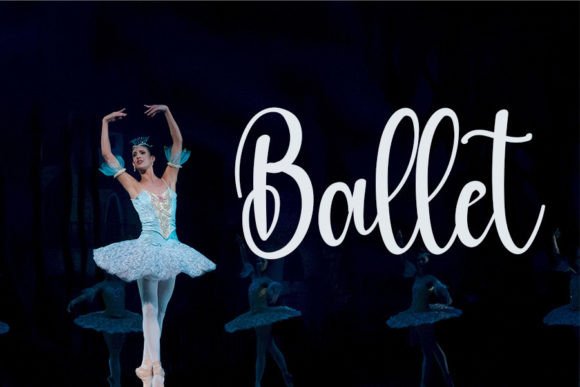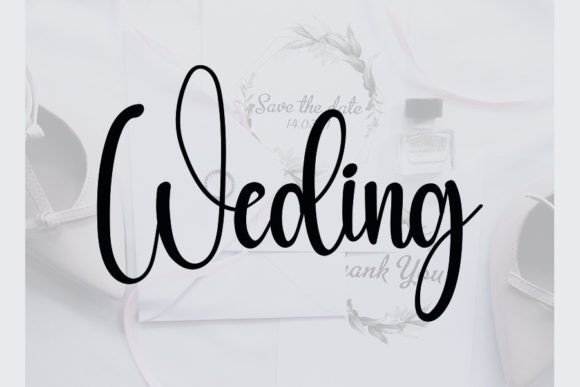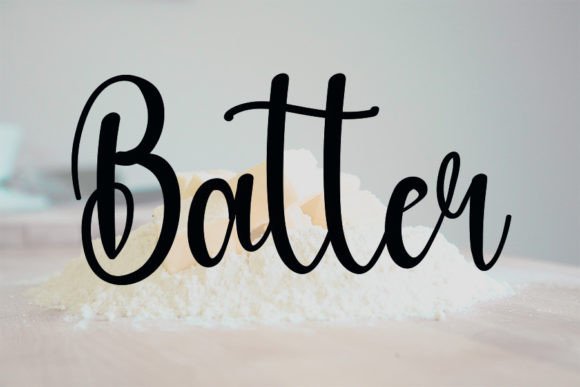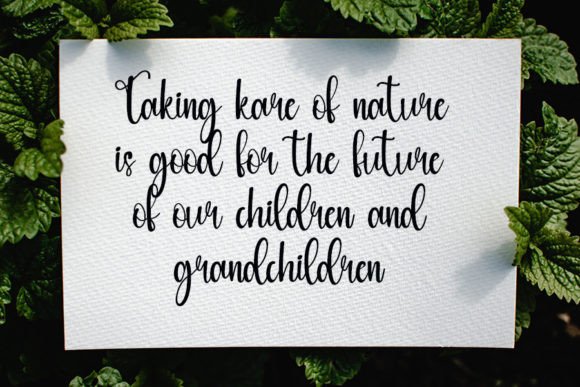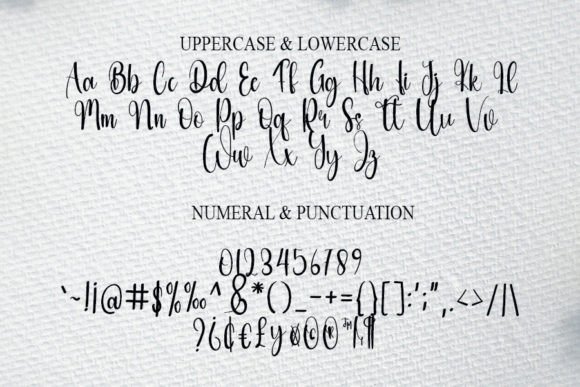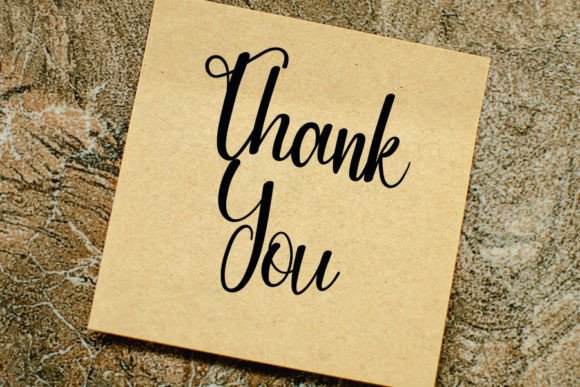
Restway Font
About Restway Font
Restway is a simple, cute, and elegant handwritten font. Add this casual and incredibly versatile font to each of your creative holiday designs, and notice how they level up.